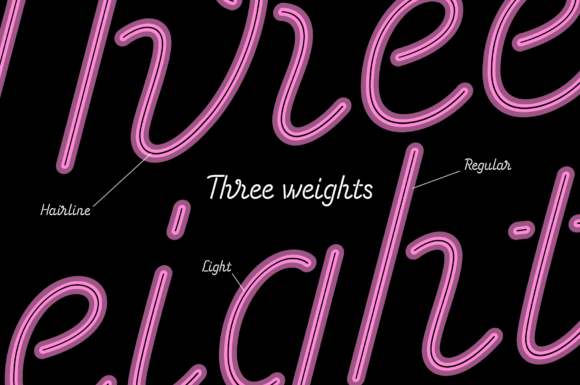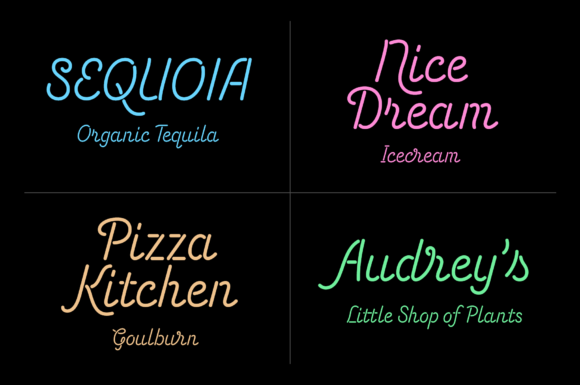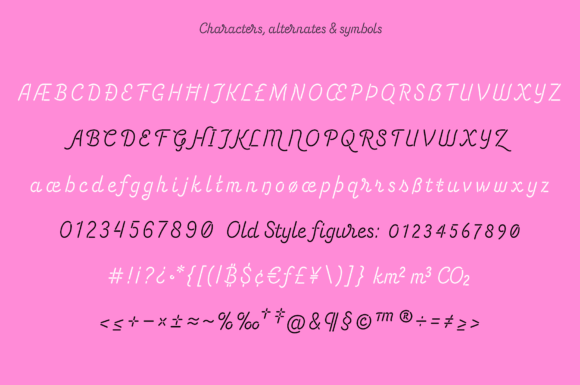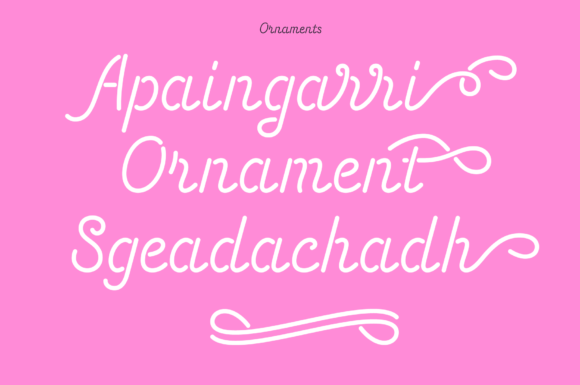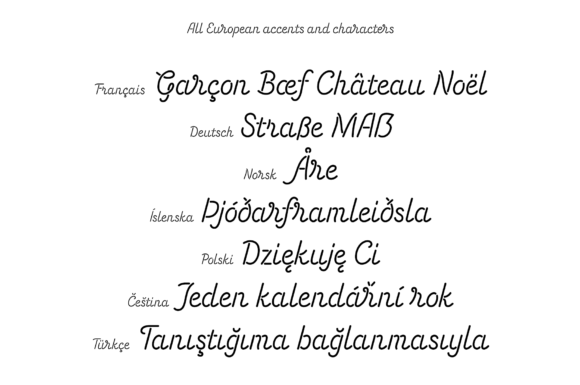
Introducing Energetic Script Font: Elevate Your Designs with Elegance and Flair
Are you a designer or crafter looking for a font that can add a touch of sophistication and whimsy to your creative projects? Look no further than Energetic Script Font, a delicate, elegant, and flowing handwritten font that is sure to bring your designs to life. In this article, we’ll take a closer look at the features and benefits of Energetic Script Font, and explore how it can be used to enhance your most creative ideas.
A Delicate, Elegant, and Flowing Handwritten Font
Energetic Script Font is a beautiful, hand-crafted font that exudes elegance and refinement. Its delicate lines and flowing curves make it perfect for a wide range of design applications, from wedding invitations and greeting cards to branding and packaging. The font’s well-balanced characters ensure that it remains clear and legible, even at smaller sizes, making it a versatile choice for any project.
Energetic Script Font Example
Matching a Wide Pool of Designs
One of the standout features of Energetic Script Font is its incredible versatility. Its classic, timeless design makes it suitable for a wide range of projects, from modern and trendy to vintage and rustic. Whether you’re creating a sophisticated luxury brand or a playful, whimsical design, Energetic Script Font is sure to complement your style. The font’s neutral tone allows it to blend seamlessly with other design elements, making it easy to incorporate into your existing design workflow.
Bring Your Ideas to Life
So, how can you use Energetic Script Font to elevate your designs? Here are a few ideas to get you started:
• Wedding Invitations and Stationery: Add a touch of romance and elegance to your wedding invitations, save-the-dates, and other stationery with Energetic Script Font.
• Branding and Packaging: Use Energetic Script Font to create beautiful, eye-catching packaging and branding materials that will help your business stand out.
• Greeting Cards and Gift Tags: Add a personal touch to your greeting cards and gift tags with Energetic Script Font’s delicate, handwritten curves.
• Digital Products and Templates: Incorporate Energetic Script Font into your digital products and templates, such as printable art, planners, and journals.
Why Choose Energetic Script Font?
With so many fonts to choose from, why should you choose Energetic Script Font for your next project? Here are just a few reasons:
• Unique and Eye-Catching: Energetic Script Font is a one-of-a-kind font that will add a touch of elegance and sophistication to your designs.
• Highly Versatile: The font’s classic design makes it suitable for a wide range of projects and design styles.
• Easy to Read: Energetic Script Font is clear and legible, even at smaller sizes, making it perfect for body text and headlines.
Font Name Energetic Script Font
Author Studio Dot by dot
In conclusion, Energetic Script Font is a beautiful, elegant, and flowing handwritten font that is perfect for designers and crafters looking to add a touch of sophistication and whimsy to their creative projects. With its delicate lines, well-balanced characters, and versatile design, Energetic Script Font is sure to bring your designs to life. Whether you’re creating wedding invitations, branding materials, or digital products, Energetic Script Font is a great choice for any project.